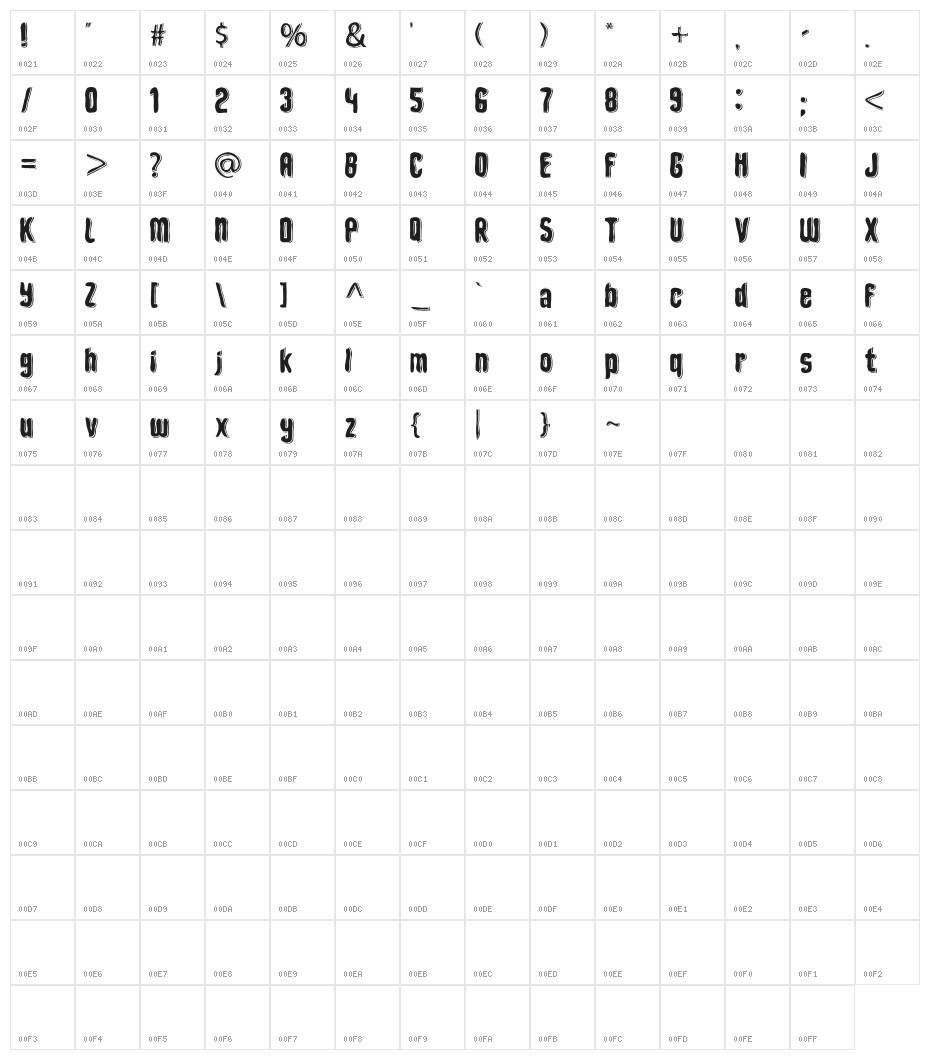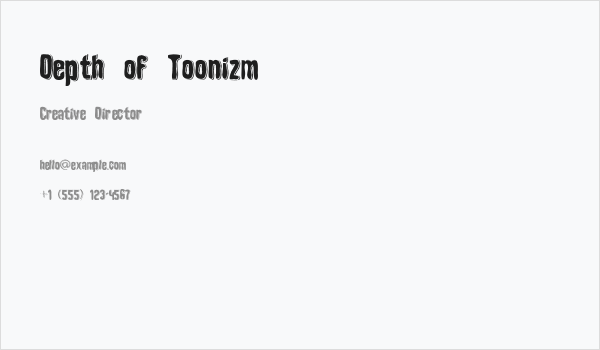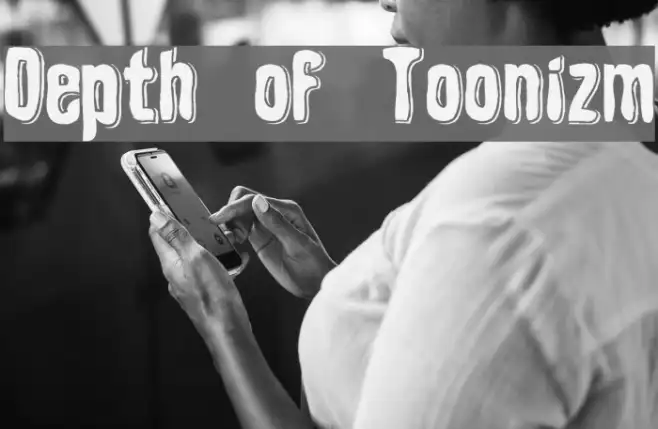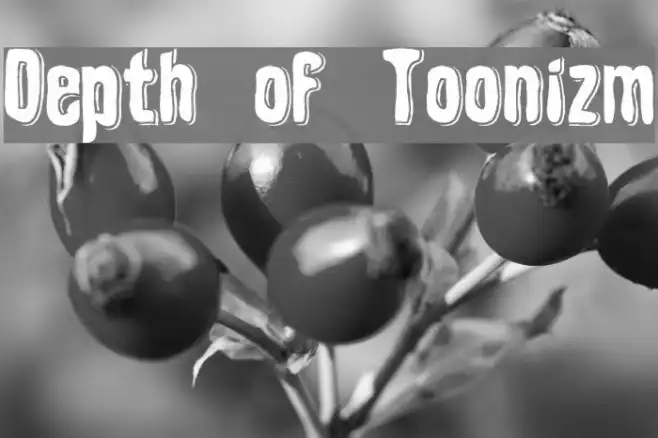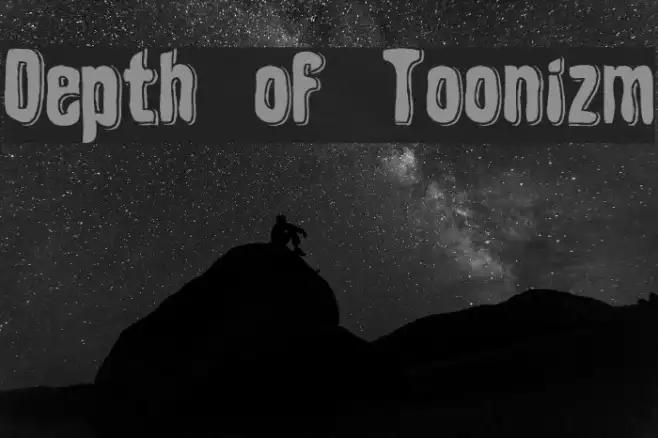
Depth of Toonizm Font
Depth of Toonizm Description
This font features a playful and bold design with a three-dimensional effect, giving each character a sense of depth and movement. The letters are thick and rounded, with a cartoonish style that adds a whimsical touch. The strokes are uneven, creating a dynamic and lively appearance. This font is perfect for projects that require a fun and engaging visual impact, such as children's books, comic strips, or playful branding. The unique style captures attention and conveys a sense of creativity and imagination.
| Overall Style | Playful, Cartoonish, Whimsical |
| Proposed Projects | Ideal for children's books, comic strips, playful branding, and creative posters. |